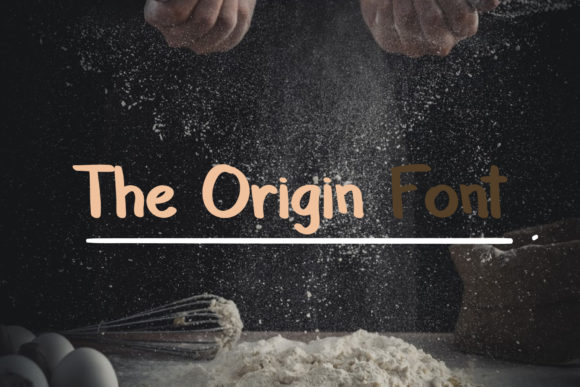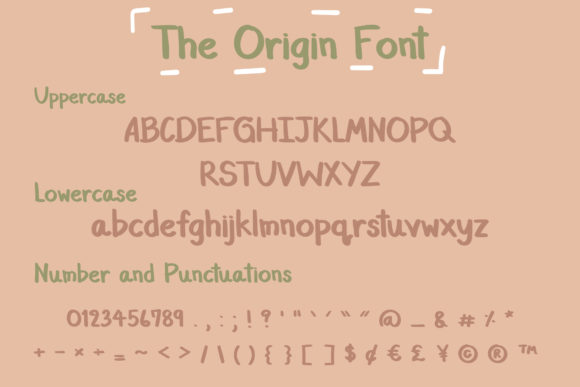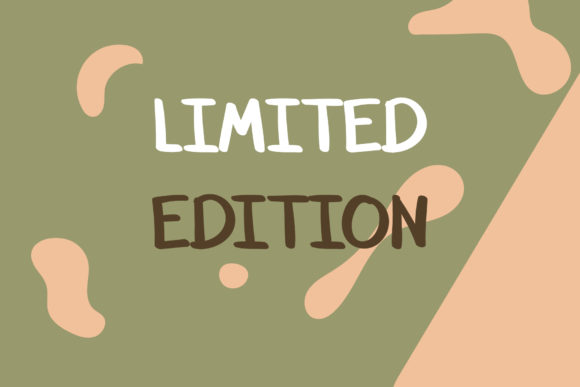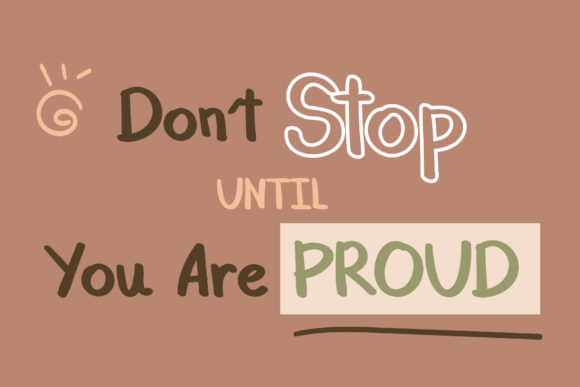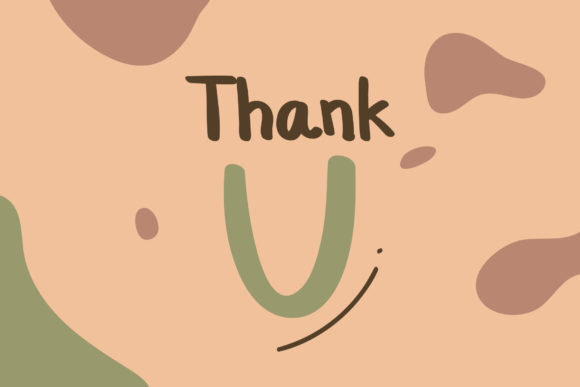
The Origin Font
About The Origin Font
The Origin Font is a friendly and modern handwritten font with a casual style. Fall in love with its playful appearance!